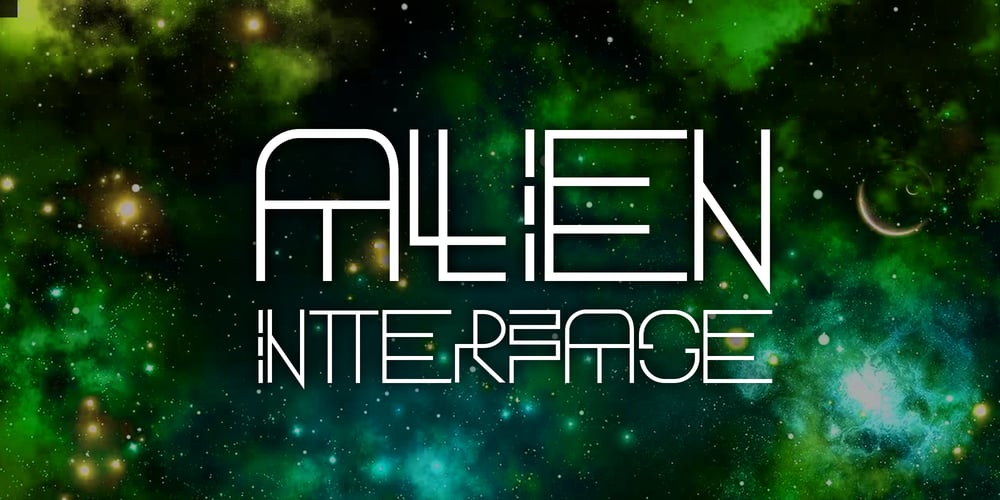
Alien Interfase Font Family was designed by Paulo Gomez and published by Equinoxio Diseño. Alien Interfase contains 1 styles and family package options. Take a deep breath and tink in a deep and extrange galaxy where texts and signs are extrange for a first human look, with unrecognocible letters standing alone but readables all togheter… this font plays around this idea.Thin lines and simply curvatures define this rare group of characteres, ready to be used to challenge the capacity of adaptation and recognition of readable signs of the human brain. Are you ready to take the trip? Find it out!